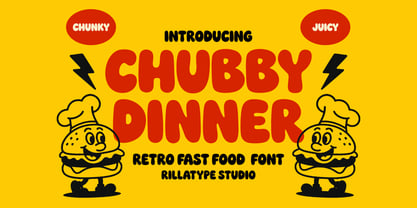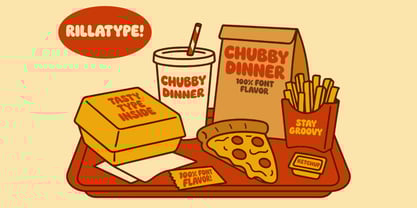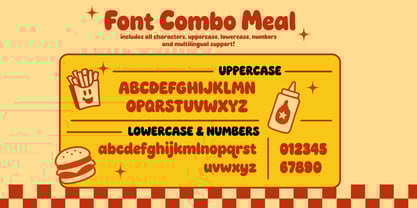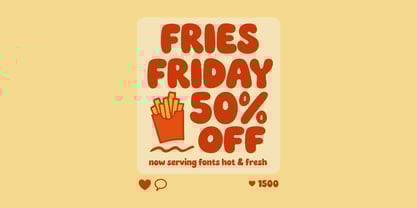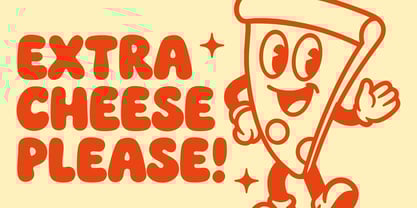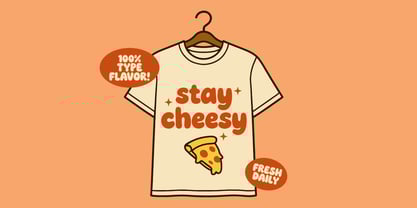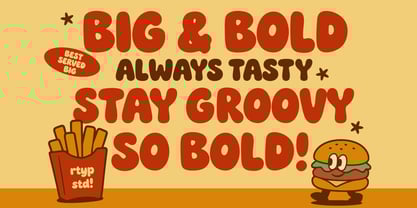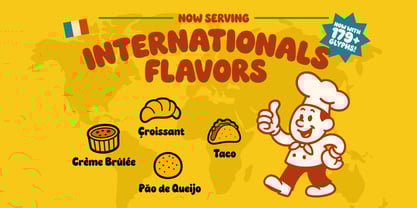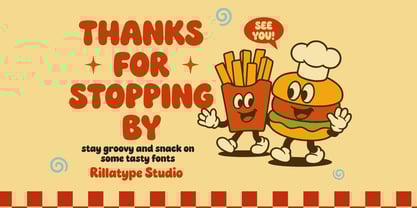
RT Chubby Dinner
by Rillatype
The RT Chubby Dinner Font Family was designed by Gustian Agung Asprilla and published by Rillatype. RT Chubby Dinner contains 1 styles. More about this family
Chubby Diner is a bold and bubbly display font inspired by retro fast food signage and vintage diner menus. With thick rounded strokes, friendly curves, and a nostalgic tone, this typeface brings playful energy to any project. Perfect for logos, packaging, T-shirts, posters, and social media graphics, Chubby Diner delivers tasty vibes with every letter. Whether you're crafting a 70s-style brand or a fun food-related campaign, this font will serve up bold personality and charm—extra cheese included!
Designers: Gustian Agung Asprilla
Foundry: Rillatype